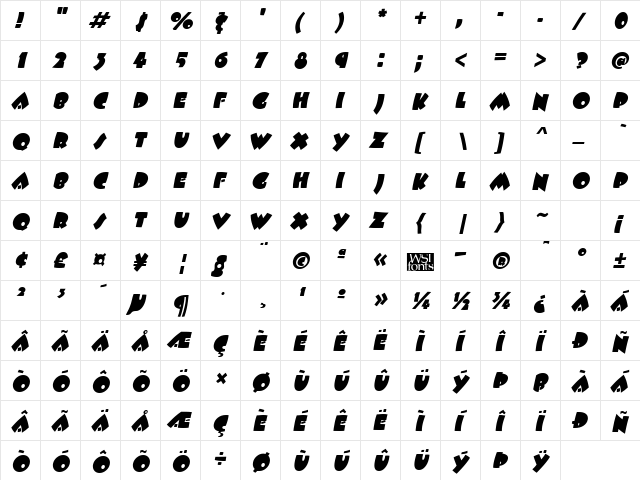
Beetlejuice Italic
Design Context for Beetlejuice Typeface
Beetlejuice is a composed and adaptable typeface that performs quietly and consistently across a wide range of design contexts. Its italic angle brings a sense of urgency and motion to the letterforms.
Pro Tip: Use Beetlejuice for emphasis, pull quotes, and subheadings where its slanted energy can add rhythm to the layout.